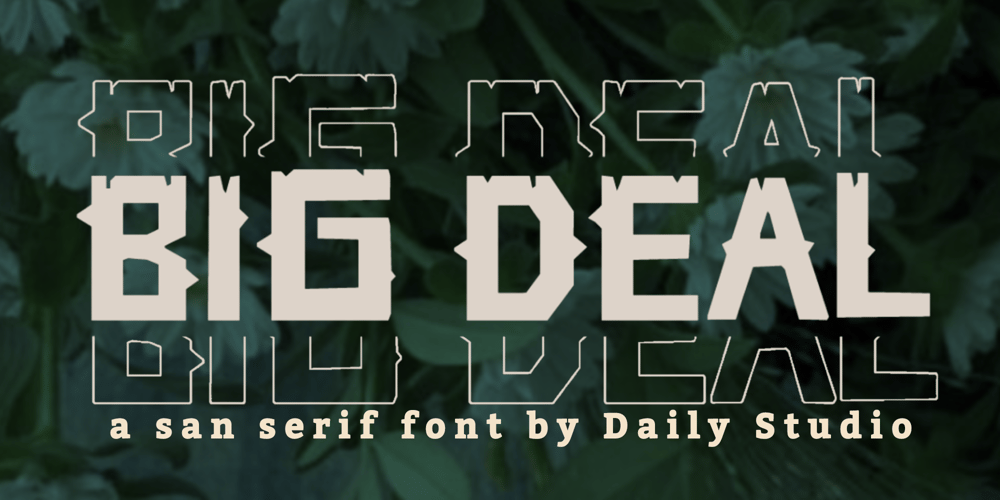
Big Deal
Big Deal font
Big Deal Font Family was designed by Zaizafun Hanifah and published by Daily Studio. Big Deal contains 1 styles and family package options. Big Deal is a display San serif font with a strong character. A beautifully handcrafted modern typeface that helps you to create remarkable logos, headings, advertisements, and more. With 235 glyphs and files in OTF format. If you want to make your project to a whole new level, you are going to love this font.